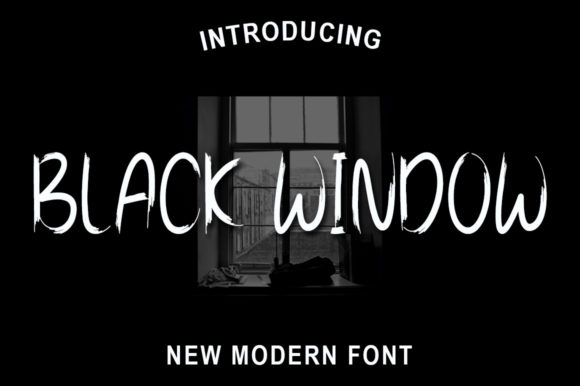
Introducing Black Window Font: Elevate Your Crafty Ideas with a Unique Handwritten Style
Are you a designer or crafter looking for a font that can add a touch of personality to your projects? Look no further than Black Window Font, a slim and sleek handwritten font that features an authentic style resembling thin brush strokes. This awesome typeface is incredibly cool and original, making it the perfect choice for anyone looking to elevate the look of their crafty ideas.
What is Black Window Font?
Black Window Font is a carefully crafted handwritten font that boasts a unique and stylish appearance. Its slim and sleek design makes it perfect for a wide range of applications, from crafting and DIY projects to digital designs and marketing materials. The font’s authentic style, which resembles thin brush strokes, gives it a distinctive and eye-catching look that is sure to grab attention.
Key Features of Black Window Font
So, what makes Black Window Font so special? Here are just a few of its key features:
- Unique and original design: Black Window Font features a one-of-a-kind design that is sure to make your projects stand out from the crowd.
- Slim and sleek appearance: The font’s slim and sleek design makes it perfect for a wide range of applications, from digital designs to print materials.
- Authentic brush stroke style: The font’s authentic brush stroke style gives it a distinctive and eye-catching look that is sure to grab attention.
- Incredibly cool and original: Black Window Font is an incredibly cool and original font that is sure to add a touch of personality to your projects.
How to Use Black Window Font
Black Window Font is incredibly versatile and can be used in a wide range of applications. Here are just a few ideas to get you started:
- Crafting and DIY projects: Use Black Window Font to add a personal touch to your crafting and DIY projects, such as handmade cards, gift tags, and scrapbook pages.
- Digital designs: Use Black Window Font to add a touch of personality to your digital designs, such as social media graphics, blog posts, and website headers.
- Marketing materials: Use Black Window Font to add a unique and eye-catching touch to your marketing materials, such as brochures, flyers, and business cards.
Why Choose Black Window Font?
So, why should you choose Black Window Font for your next project? Here are just a few reasons:
- Unique and original design: Black Window Font features a unique and original design that is sure to make your projects stand out from the crowd.
- High-quality font: Black Window Font is a high-quality font that is designed to deliver exceptional results in a wide range of applications.
- Easily readable: Despite its slim and sleek design, Black Window Font is easily readable, making it perfect for use in a wide range of applications.
In conclusion, Black Window Font is an exceptional handwritten font that is sure to elevate the look of any crafty idea. Its unique and original design, slim and sleek appearance, and authentic brush stroke style make it the perfect choice for designers and crafters looking to add a touch of personality to their projects. Whether you’re working on a crafting or DIY project, a digital design, or a marketing material, Black Window Font is an excellent choice. So why wait? Download Black Window Font today and start creating stunning projects that are sure to grab attention!